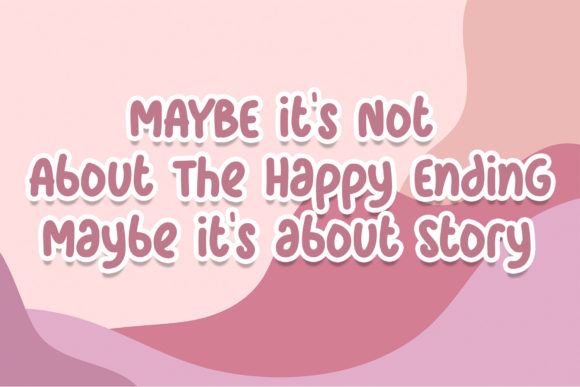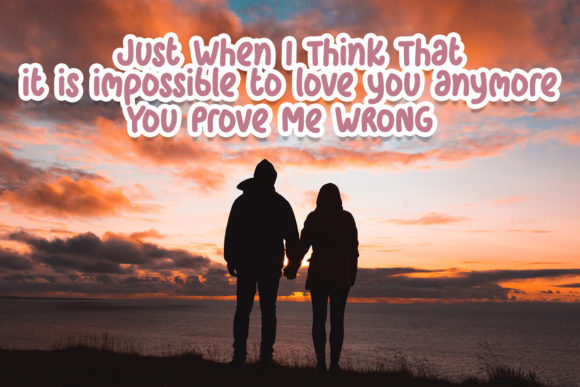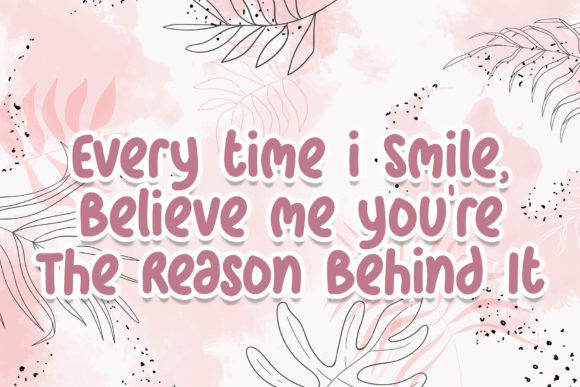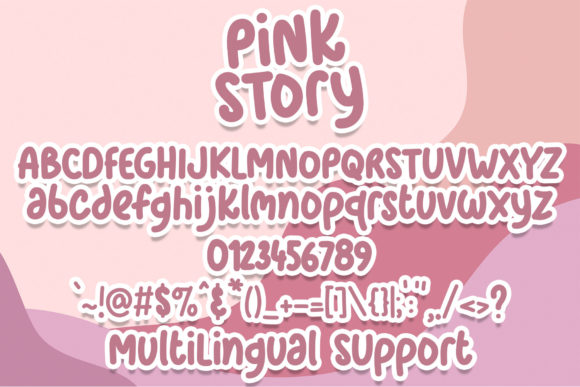
Introduction to Pink Story Font
Have you ever found yourself in a creative rut, staring at a blank canvas, searching for the perfect font to bring your design to life? I know I have. But then, I stumbled upon the Pink Story Font, and everything changed. This adorable handwritten font has become my go-to choice for any project that requires a touch of whimsy and joy.
Whether I’m working on a children’s book cover, a cartoon-themed poster, or a title for a new game, the Pink Story Font is always my first pick. Its high-quality design and free download make it an invaluable resource for designers like me. With its transparent background, it’s easy to customize and integrate into any creative project. The Pink Story Font is more than just a font – it’s a design resource that adds a personal touch to any design.
Key Features of Pink Story Font
- High-quality, unique design: The Pink Story Font is designed to add a touch of elegance and sophistication to any creative project.
- Transparent background: The font features a transparent background, allowing for easy placement over any image or design.
- Unique characteristics: The Pink Story Font features a unique, hand-drawn style with subtle texture and imperfections, adding a touch of personality to any design.
- Perfect for creative projects: This font is ideal for use in creative projects, such as wedding invitations, birthday cards, and other design-related applications.
Honest Review: Pink Story Font
I recently had the chance to work with the Pink Story Font, and I must say it’s been a great addition to my design resource library. ✨
Here are some of the things that I like about this font:
- The font has a transparent background, allowing for seamless integration into any design project.
- It’s perfect for creative projects where you want to add a touch of elegance and sophistication.
However, there are a few limitations that I’d like to mention:
- ⚠️ The font library is relatively small, which may limit its versatility in certain design scenarios.
- ⚠️ Some characters may not be as detailed or refined as you’d expect from a high-quality font.
Overall, I’d say that the Pink Story Font is a solid choice for designers looking for a free and stylish font to add to their creative project. While it’s not perfect, its strengths far outweigh its weaknesses, making it a worthwhile addition to any design resource library.
Tips for Getting the Most Out of Pink Story Font
For the best results, use the Pink Story Font in conjunction with other design resources, such as graphics and images, to create a cohesive and visually appealing design.
The Pink Story Font is particularly useful for creative projects, such as blog posts, social media campaigns, and marketing materials, where a high-quality and unique font is needed to stand out from the crowd.